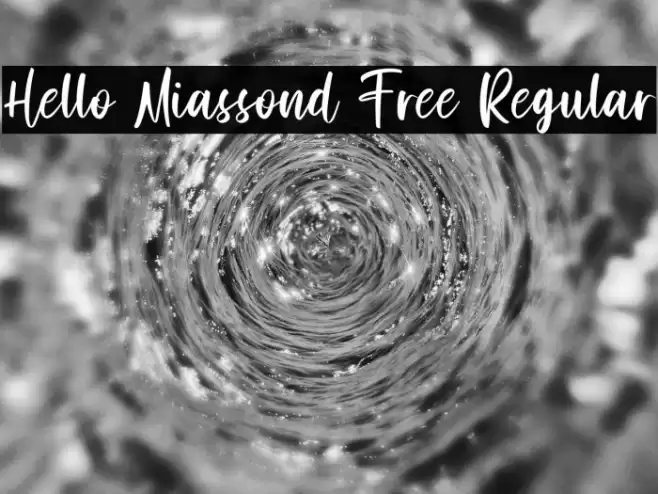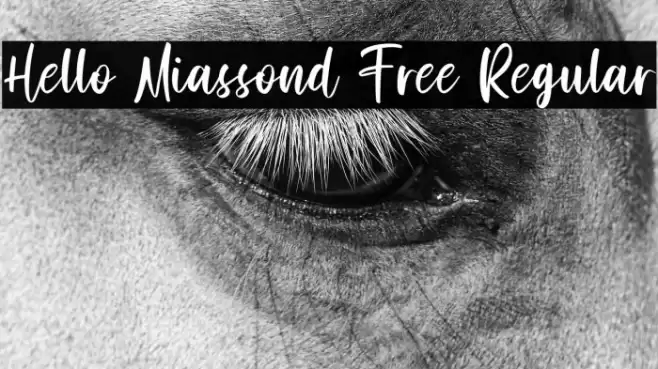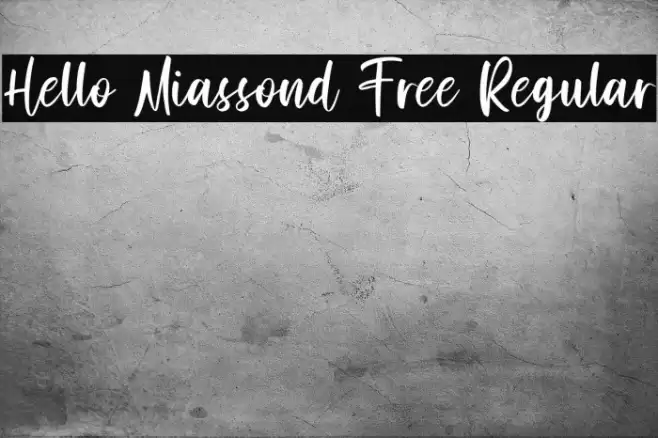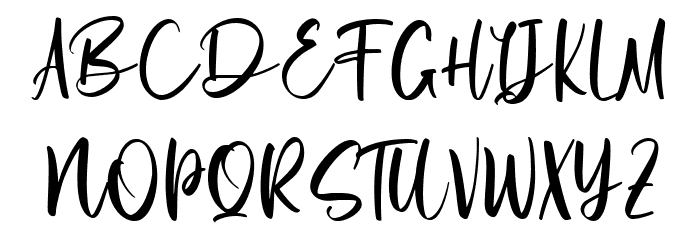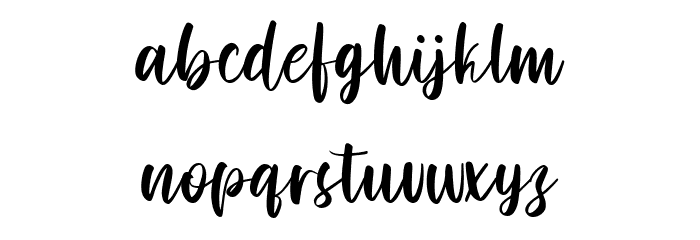
Hello Miassond Free Regular Font
Hello Miassond Free Regular Description
This font features a flowing, handwritten style with a modern flair. The characters exhibit a playful yet elegant appearance, with smooth curves and varying stroke widths that add a dynamic feel. The uppercase letters are bold and expressive, while the lowercase letters maintain a consistent, flowing script. The font's design is both artistic and readable, making it suitable for a variety of creative applications. The overall look is sophisticated yet approachable, ideal for projects that require a personal touch.
A modern, handwritten font with elegant, flowing characters from Regular fonts.
- Proposed Projects: Ideal for wedding invitations, greeting cards, branding, and social media graphics.
- Use Case: Logos, Headlines, Invitations